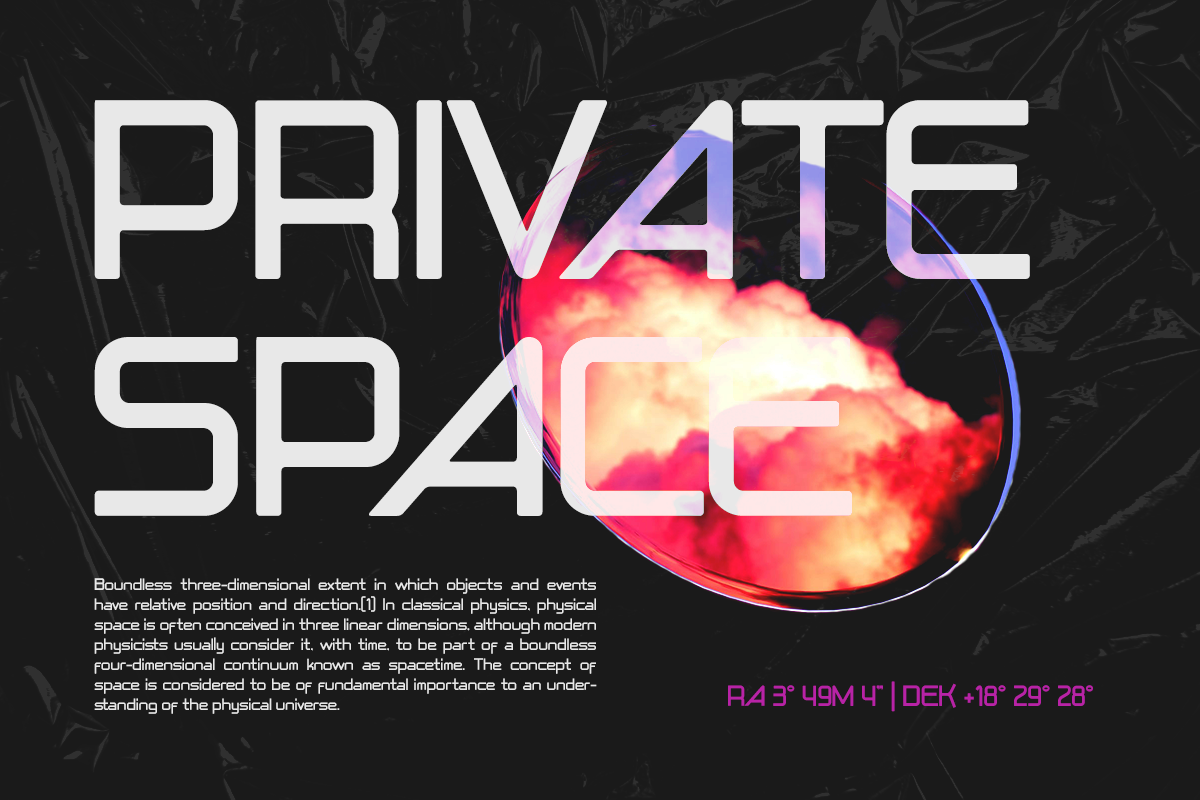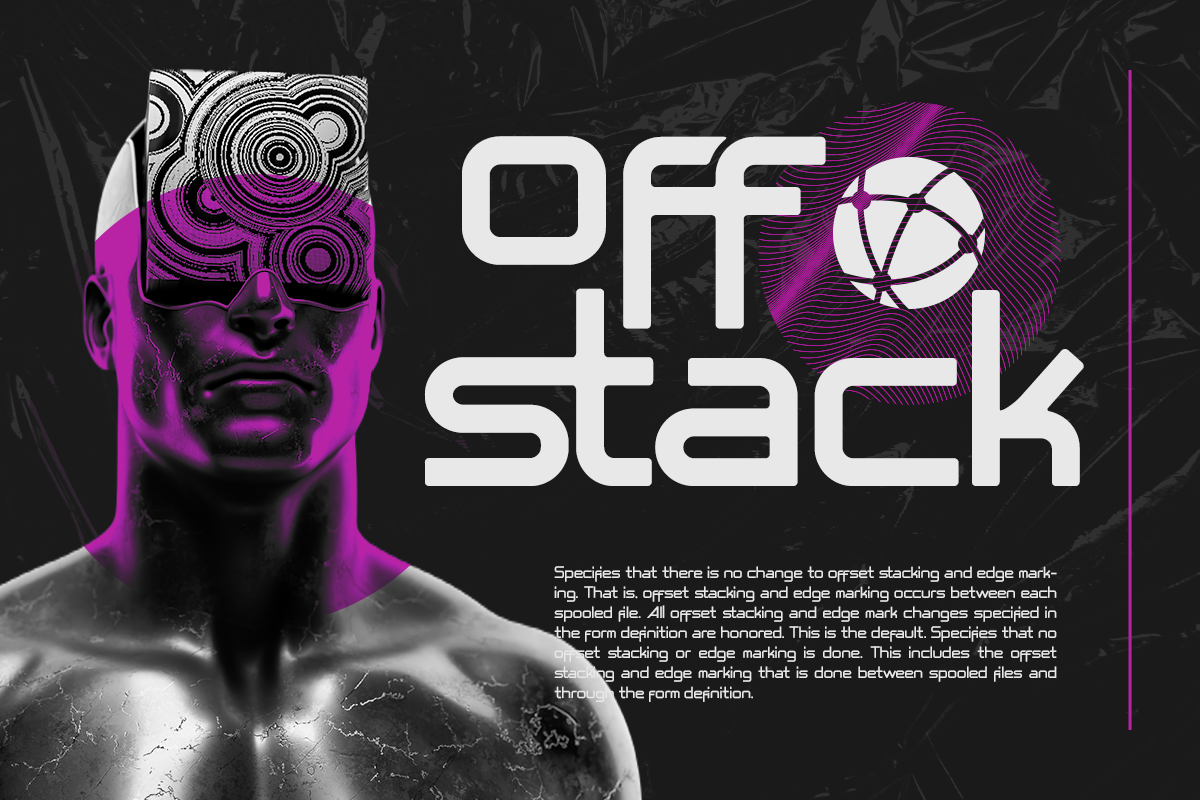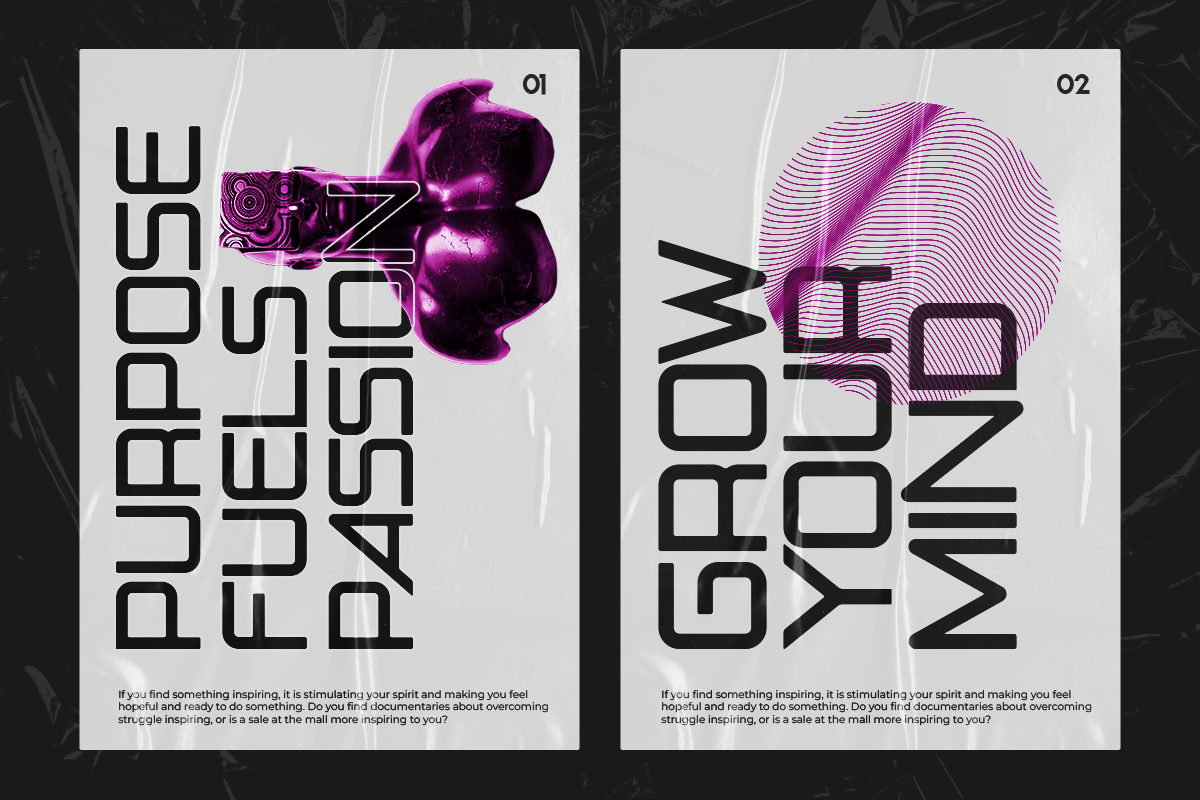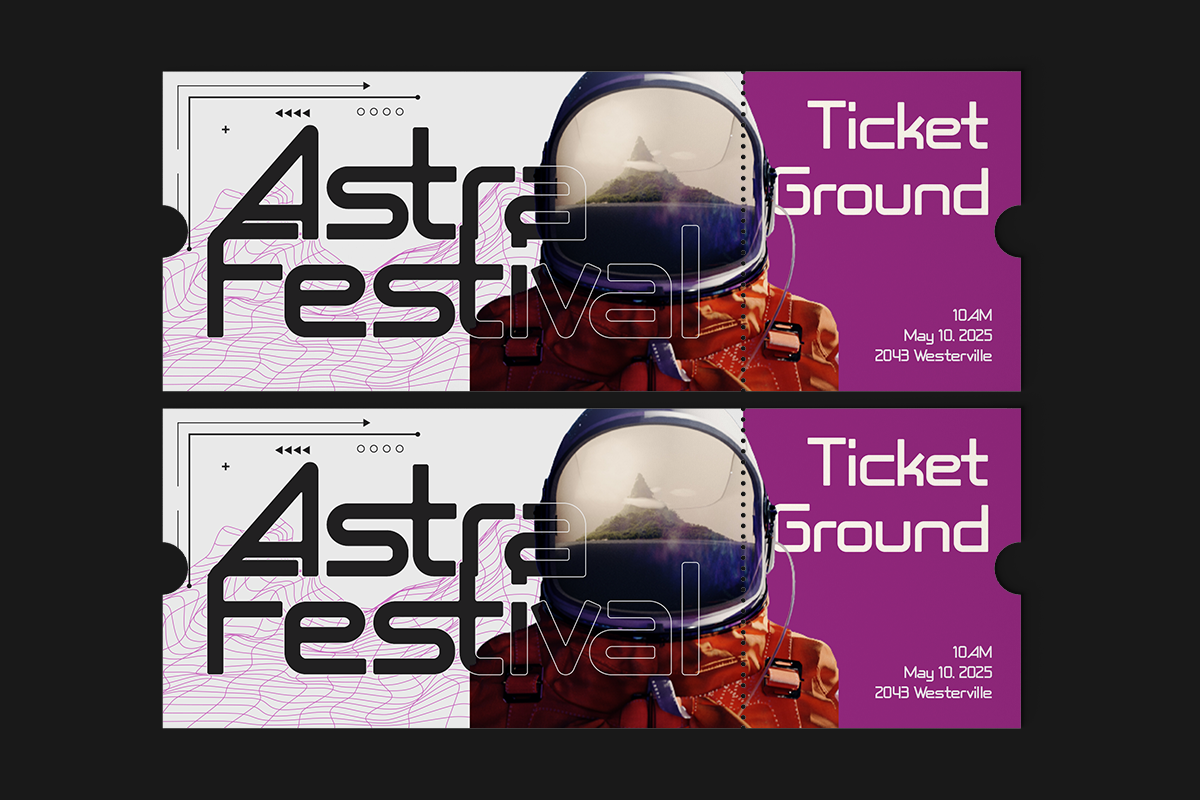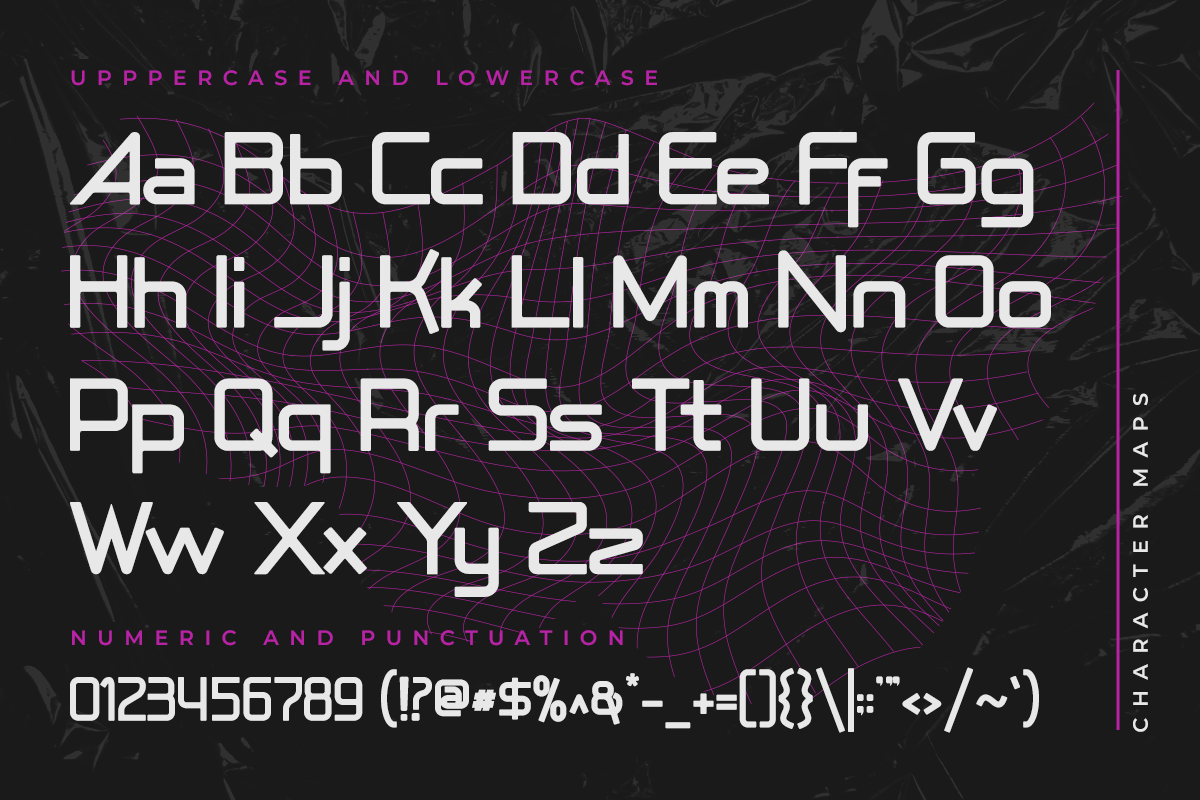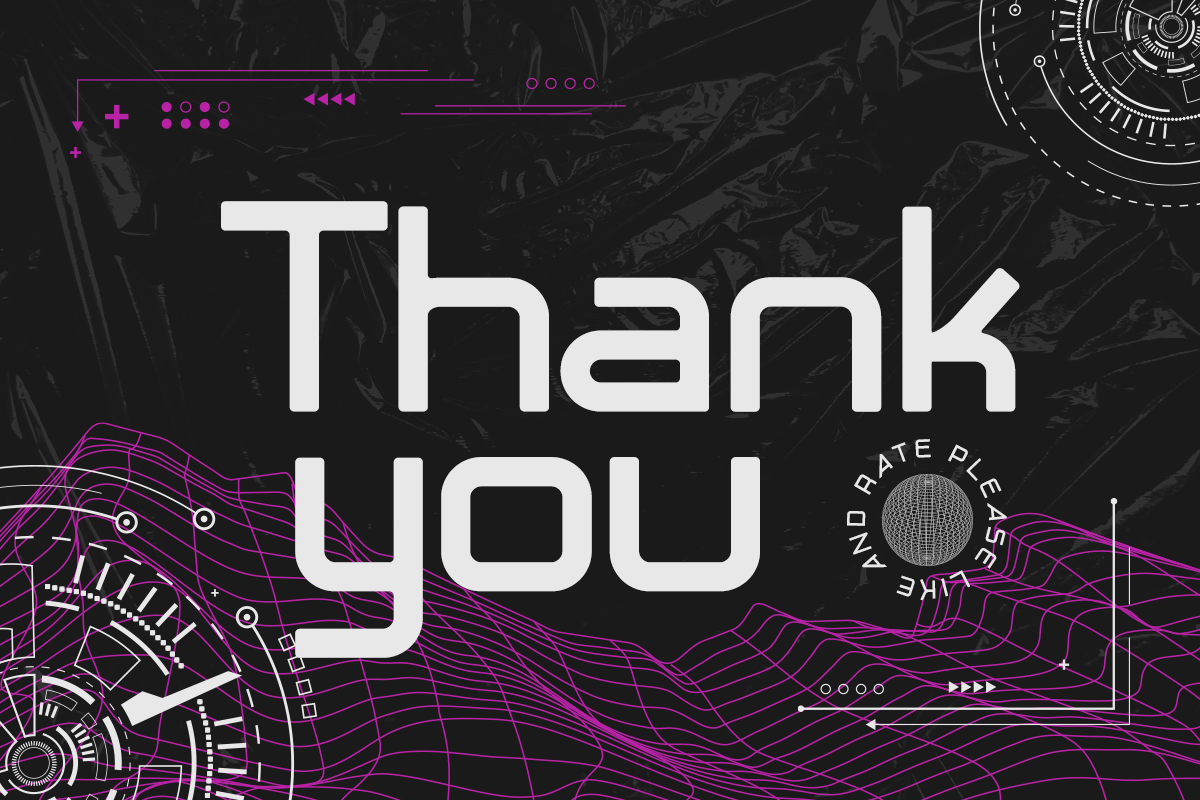
Astraneo Futuristic Font The Display font type, Astraneo Futuristic Font features strong modern font elements. Each letter of this font is easy to distinguish. You can see from a distance or up close. The letters in this font are modern, futuristic, and mechanical. This type of font is best for projects that use themes of games, future technology, space travel, and visual reality. This font can be used as a digital font, such as on the web, video, and other displays, and as a print font on posters, banners, and book covers. Astraneo Futuristic Font can use on the covers of tech books and magazines. Astraneo Futuristic font is upright and clean, but they are not suitable for writing newspapers, magazines, or articles on the web. This font is better used for writing short sentences or words because it will look clear and bold. This font belongs to the legible fonts. Our collection of Display fonts is compatible for use as; Figma Fonts, Canva Fonts, Freepik Fonts, and Adobe Fonts. They also work as Windows Fonts and Apple Fonts. For your social media needs, you can use and install fonts in our collection of Espot & Futuristic fonts to use as Instagram Fonts, Facebook Fonts, and Twitter Fonts.